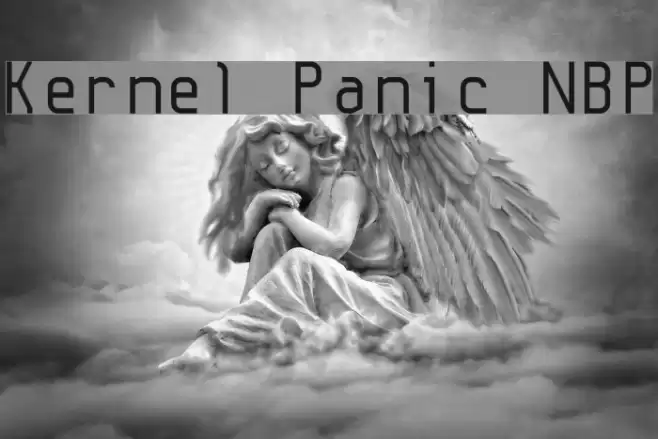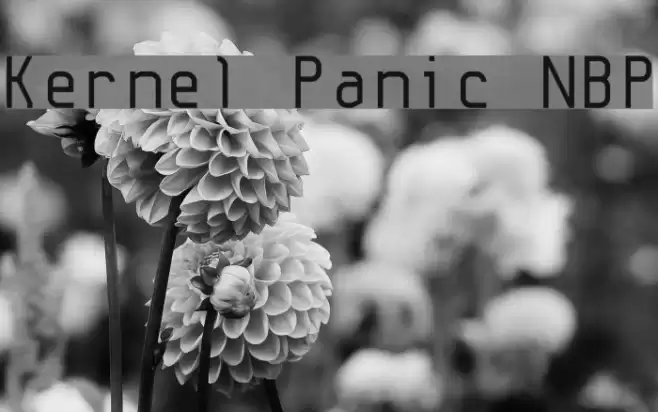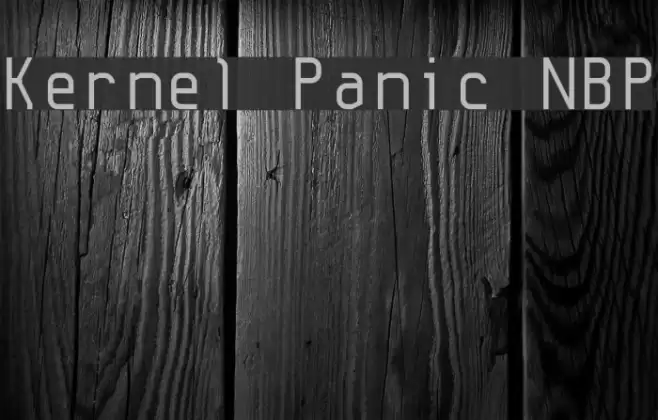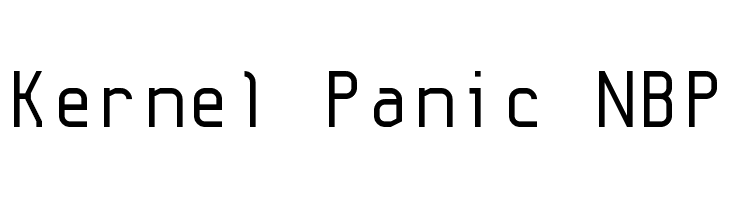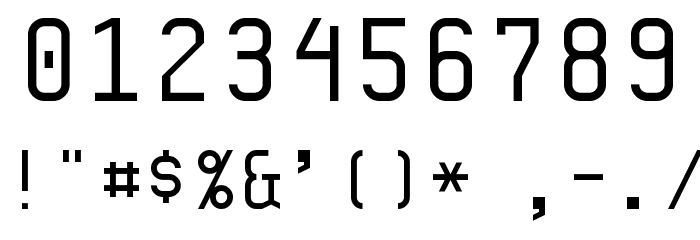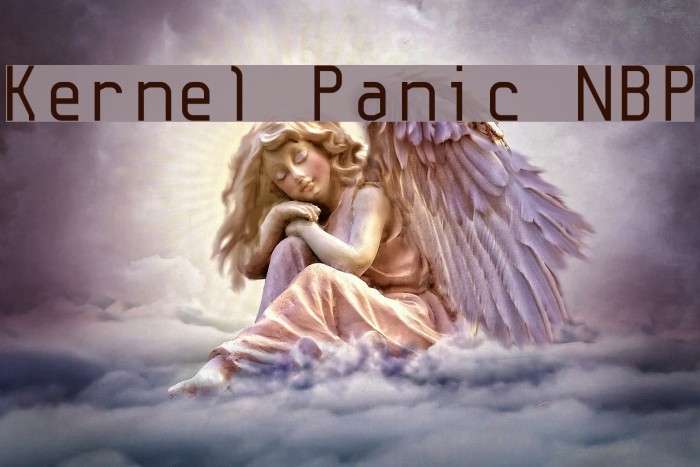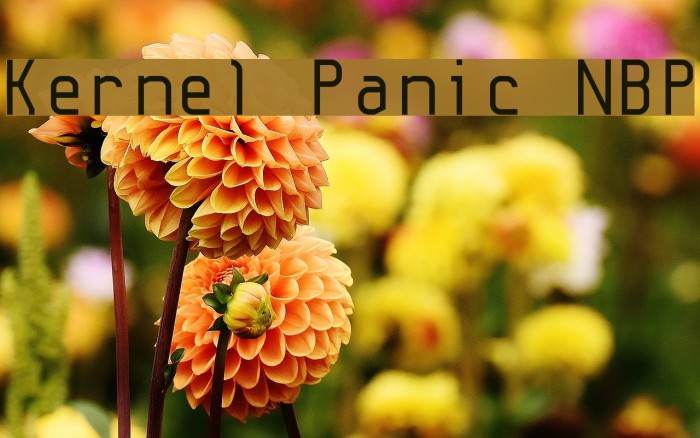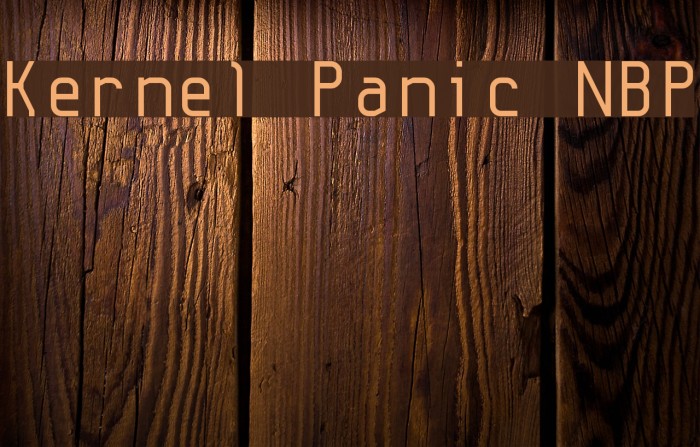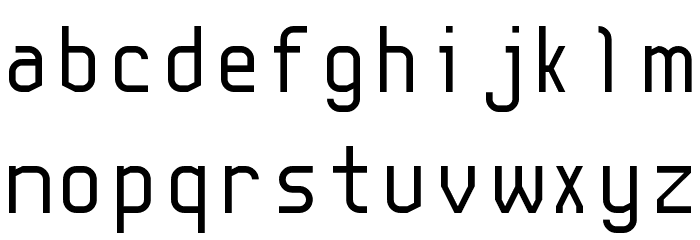
Kernel Panic NBP Font
Kernel Panic NBP Description
This font features a clean, geometric design with a modern and minimalist aesthetic. The characters are uniformly structured, with consistent stroke widths that give it a monospaced appearance. The uppercase letters are tall and slightly narrow, while the lowercase letters maintain a similar width, providing a cohesive look across different text sizes. The numerals are distinct and easy to read, with a uniform height that aligns well with the uppercase letters. Special characters are clearly defined, maintaining the font's overall geometric style. This font is ideal for digital displays and technical documents, where clarity and precision are paramount.
A modern, geometric font with a clean, monospaced appearance from Uncategorized fonts.
- Proposed Projects: Ideal for coding environments, technical documentation, and digital interfaces.
- Use Case: Digital displays, Technical documents